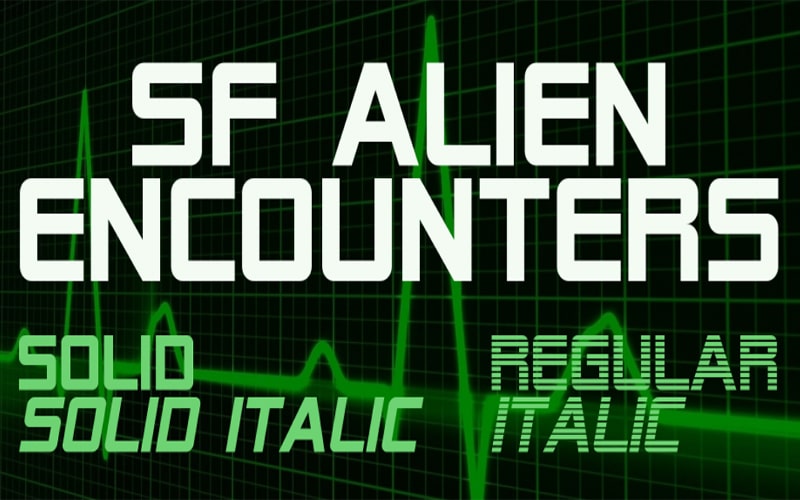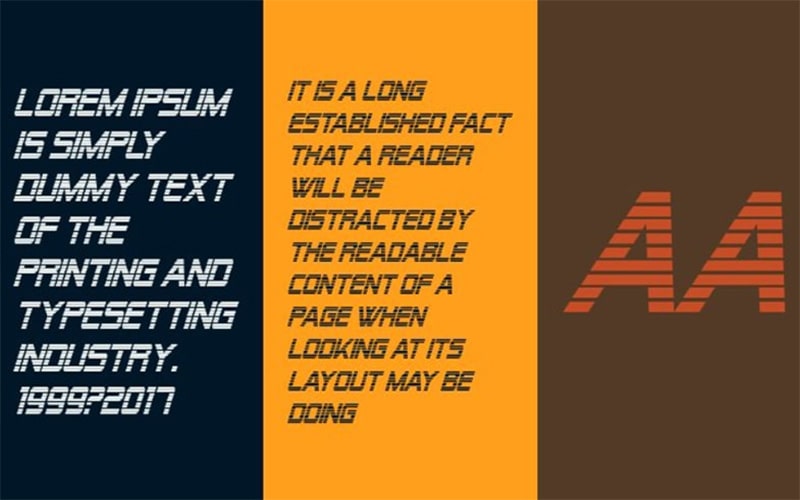
Sf Alien Encounters Font Family is a Fancy Techno typeface. The most famous Shy Foundry font holds all right reserved for this high-contrast Italic font.
For the very first time, Sf Alien Encounters Font Family was published before 2005. A close encounter typeface with an eline life form was updated by Nitzsche Justina.
The subfamily of this display typeface is regular. This amazing typeface has come with horizontal texture which contains four extraordinary font styles for windows.
Four unique styles are named Sf Alien Encounters Solid, Sf Alien Encounters Solid Italic, Sf Alien Encounters Regular, and Sf Alien Encounters Italic.
This is a single-weight font in which every single style contains 71 defined characters and 393 glyphs count in number. These amazing styles make it familiar all over the world.
This is a science fiction typeface that has come with Basic Latin and Latin Supplement Unicode Blocks which support multiple languages.
This long ascender free version font contains Uppercase, Lowercase letters, numbers, and limited punctuation marks. Let’s take a look at its beautiful texture.